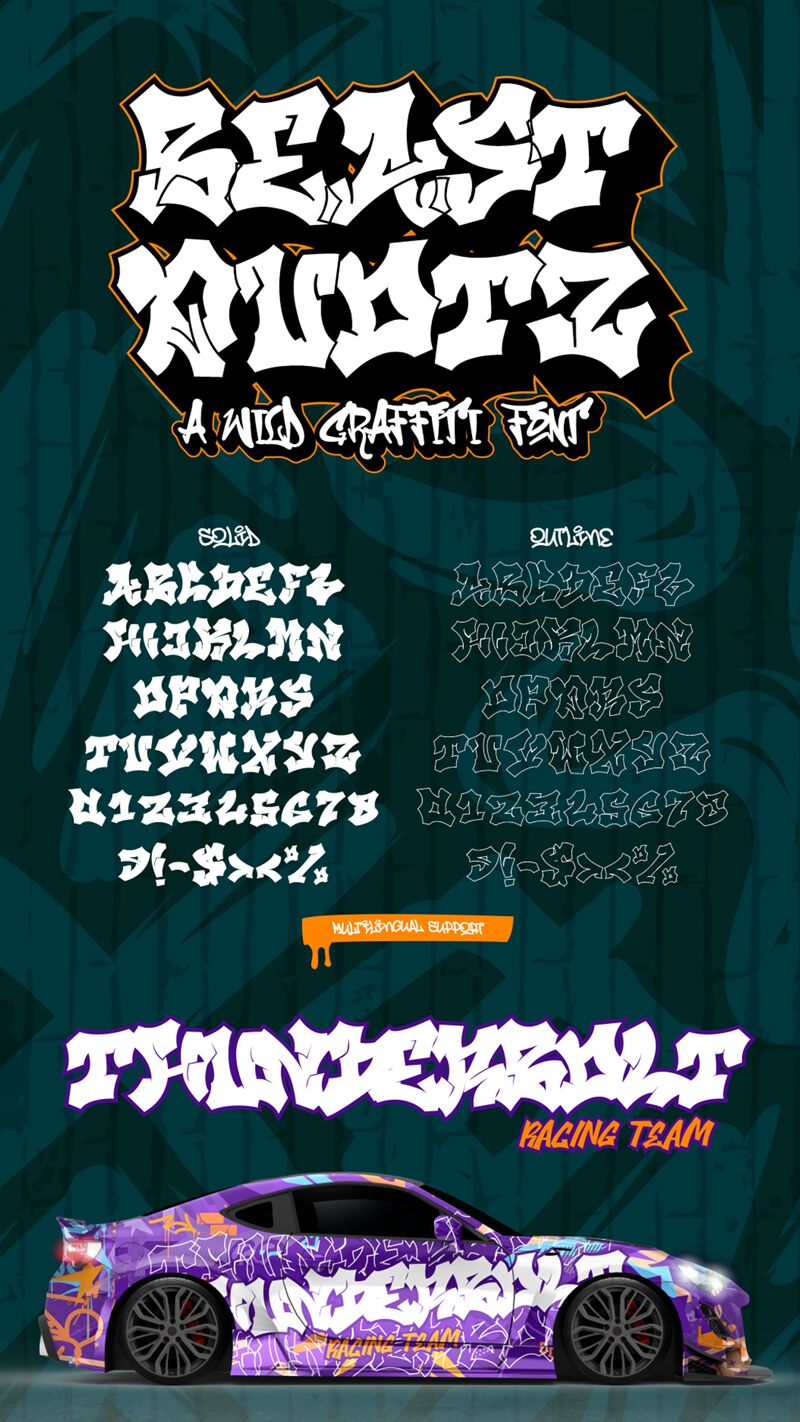
Beast Quotz font family is a free font family developed by Cikareotype Studio and available for personal use. The graffiti-inspired fonts are vibrant with an urban aesthetic, dynamic with an edgy touch, and expressive with a bold character. Its energetic feel and rebellious style transport readers right to the center of the urban jungle while a contemporary street art vibe guides the design of each character.